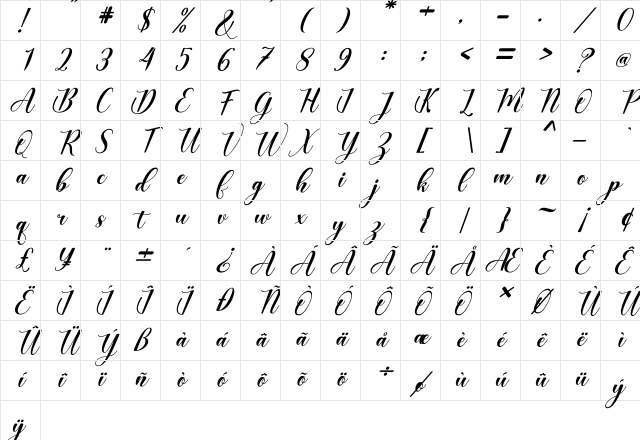
Complete The Purple Love Italic Regular glyph index. Displaying only characters natively supported by The Purple Love Italic Regular font.
The Purple Love Italic is a composed and adaptable typeface that performs quietly and consistently across a wide range of design contexts. The slanted form adds forward momentum and visual energy.
Pro Tip: Use The Purple Love Italic for emphasis, pull quotes, and subheadings where its slanted energy can add rhythm to the layout.